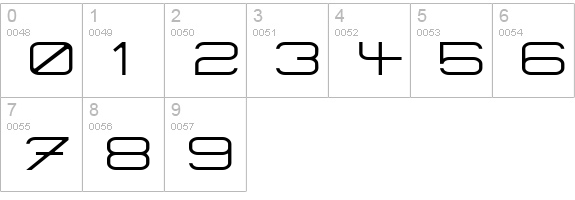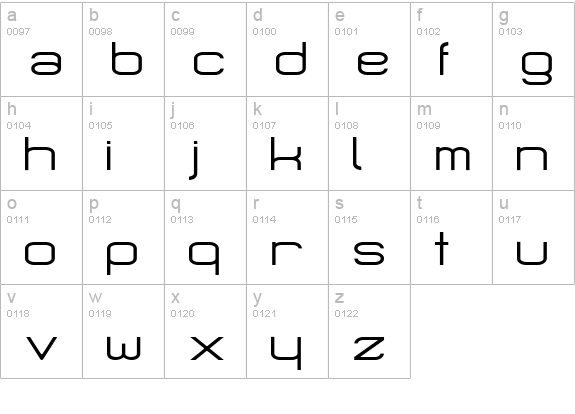
MicroMieps Font Details
MicroMieps font is a modern and stylish typeface designed for all your creative projects. With its sleek and elegant design, MicroMieps is perfect for adding a touch of sophistication to any design. This versatile font is ideal for a wide range of applications, from branding to editorial design. What sets MicroMieps apart is its unique blend of sharp edges and smooth curves, creating a harmonious balance that is visually appealing. Whether you are designing a logo, poster, or website, MicroMieps will elevate your project to the next level. Best of all, MicroMieps is available for free download at FontsMarket.com. So go ahead and unleash your creativity with this stunning font today!